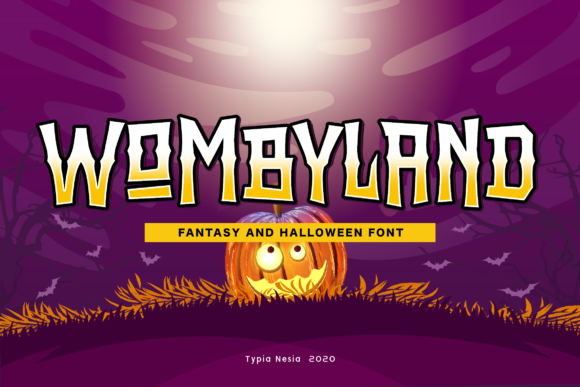
Prepare to be spellbound by Wombyland Font, a hauntingly captivating display font that will cast a magical spell on your Halloween designs. Step into a realm of eerie elegance with Wombyland's bold and spooky strokes, meticulously crafted to transport your creations to a world of thrilling wonders.
Unleash your creativity and let Wombyland take center stage in your Halloween-themed projects. Enchant your invitations with a touch of mystery, cast a spellbinding aura on your posters, or add a spine-tingling charm to your website graphics. The possibilities are endless with this enchanting font.
Embrace the spirit of Halloween and let Wombyland's captivating curves and sharp angles weave a web of intrigue and excitement. Its bewitching presence will leave a lasting impression, evoking a sense of wonder and enchantment in all who encounter it.
But Wombyland's allure extends beyond Halloween's ghostly embrace. Its versatility transcends the boundaries of the spooky season, making it a captivating choice for a wide array of creative endeavors. From book covers that whisper tales of adventure to movie posters that ignite imaginations, Wombyland possesses the power to captivate and enthrall audiences of all ages.
Don't let this haunting beauty slip through your fingers. Embrace the enchanting allure of Wombyland Font and let your creativity soar to supernatural heights. Dare to step into the realm of the extraordinary and cast a spellbinding impression on the world with Wombyland as your mystical companion.